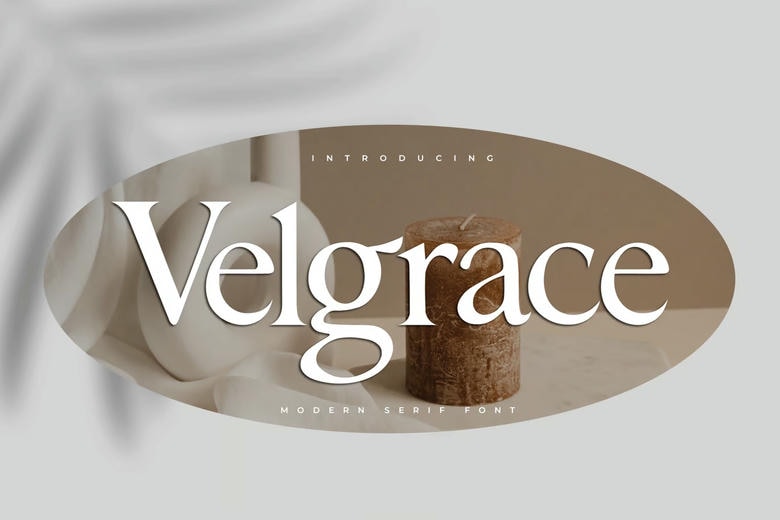
Velgrace Font
Velgrace is a modern serif font that combines timeless elegance with a fresh, contemporary feel. Designed with clean lines and graceful curves, Velgrace brings a refined look to your projects—perfect for those who seek both beauty and clarity in their typography.
Velgrace is ideal for high-end branding, editorial layouts, logo design, invitations, packaging, and more. Its stylish yet readable letterforms make it versatile for both print and digital media. Whether you’re crafting a sophisticated headline or a minimalist logo, Velgrace adds a distinctive touch of class.
Equipped with multilingual support, punctuation, and stylistic alternates, Velgrace is your go-to serif font for modern elegance and creative versatility.